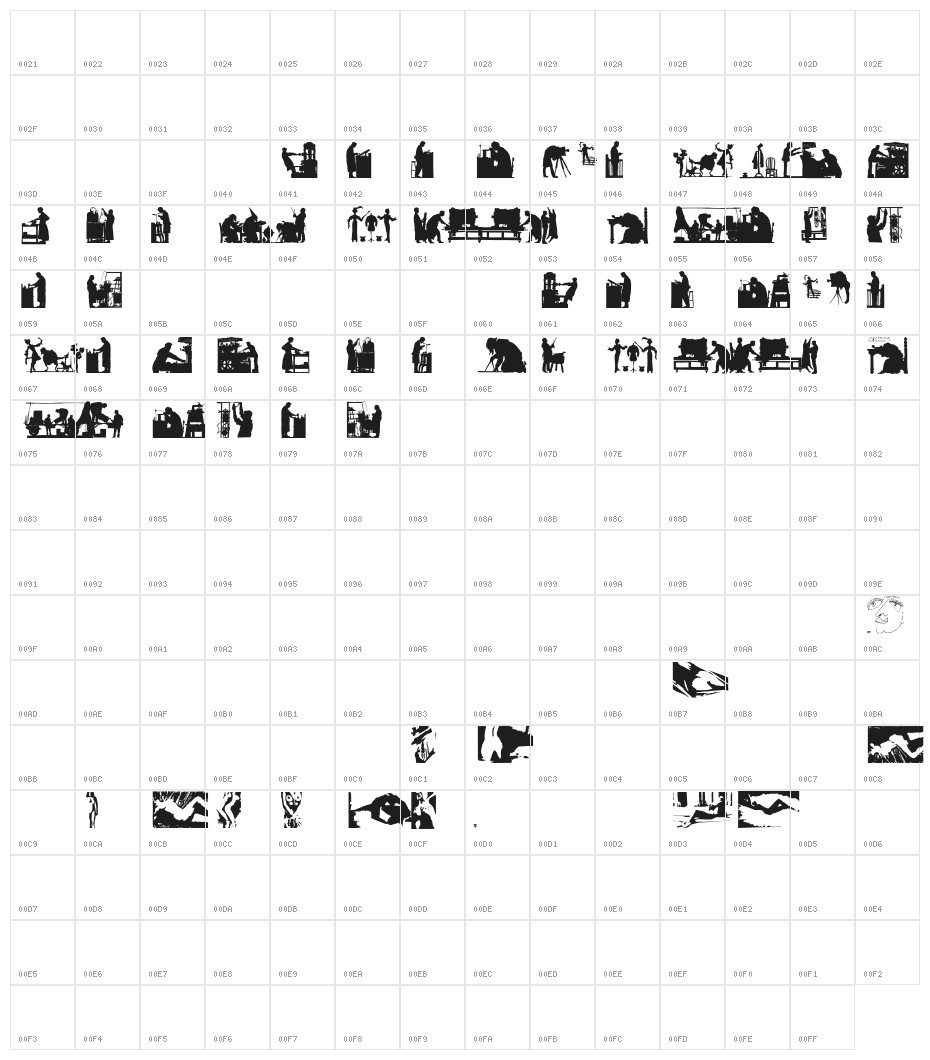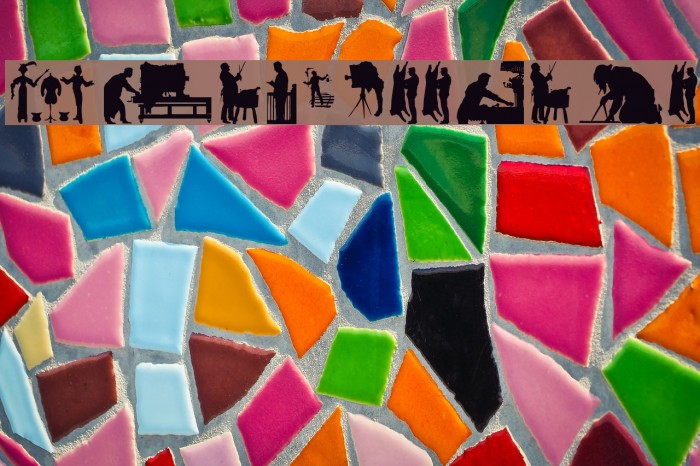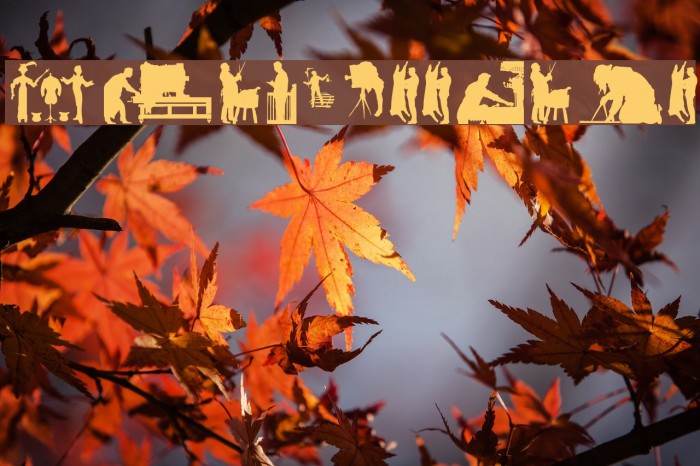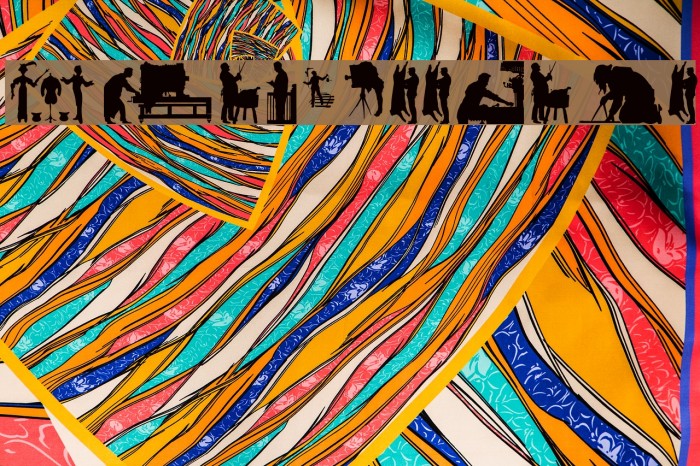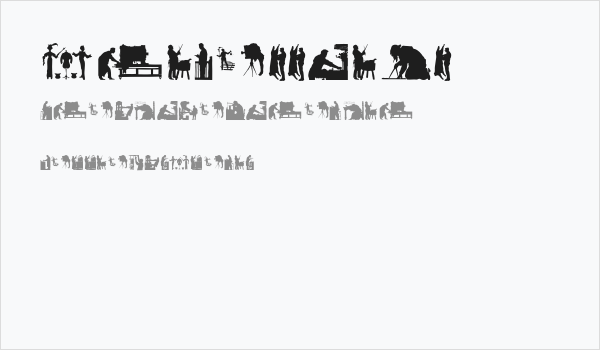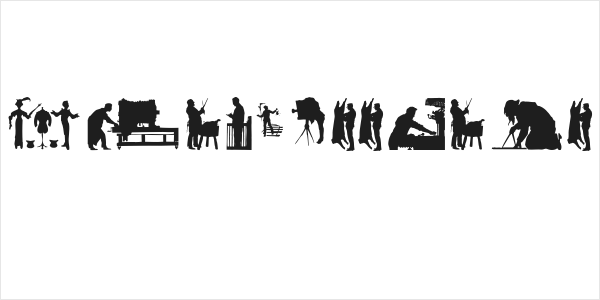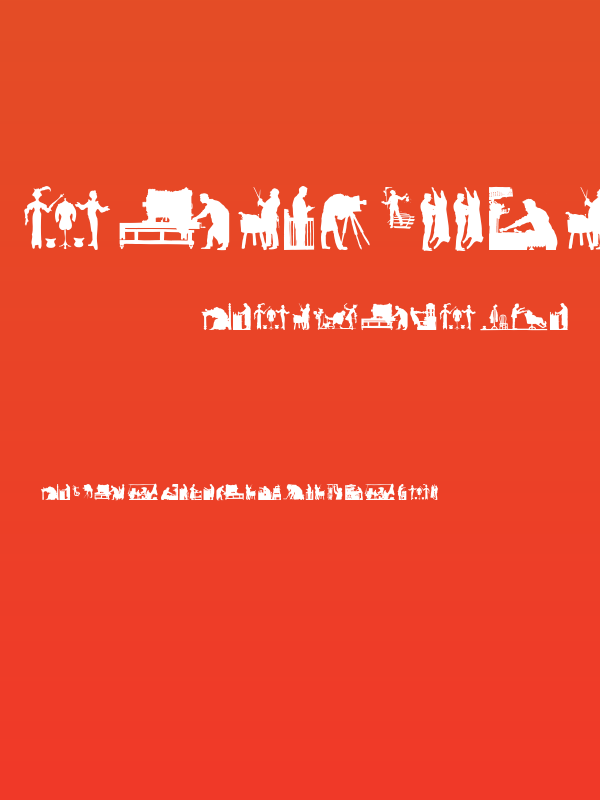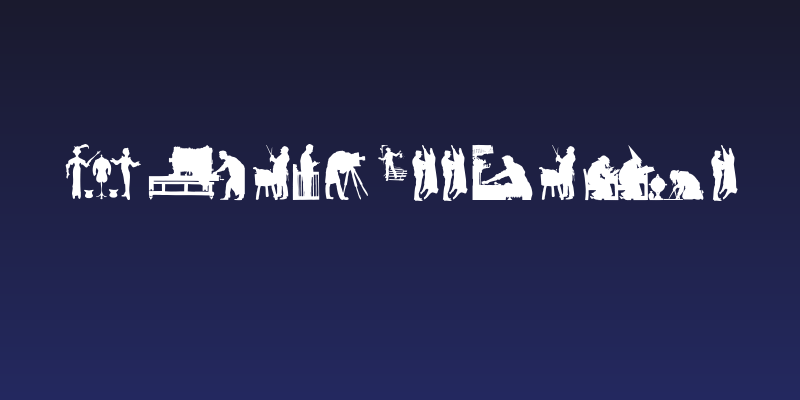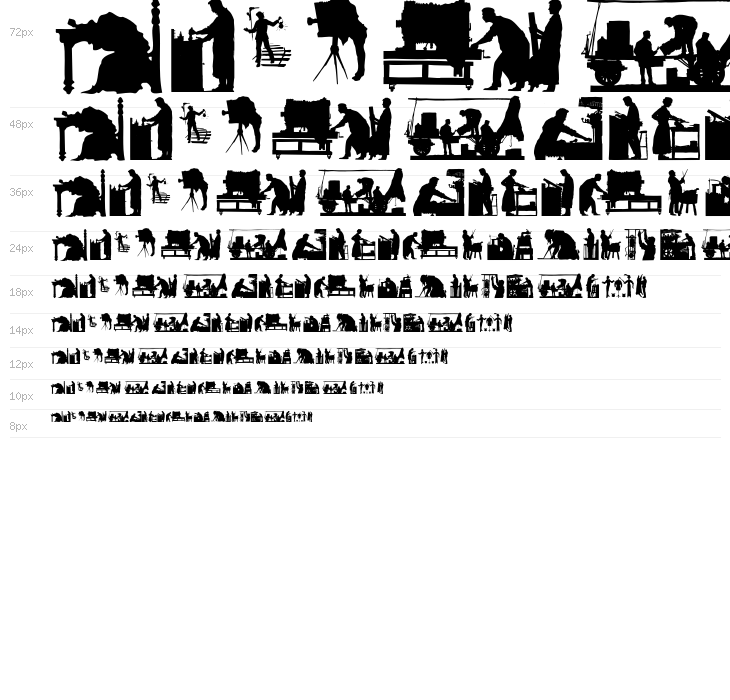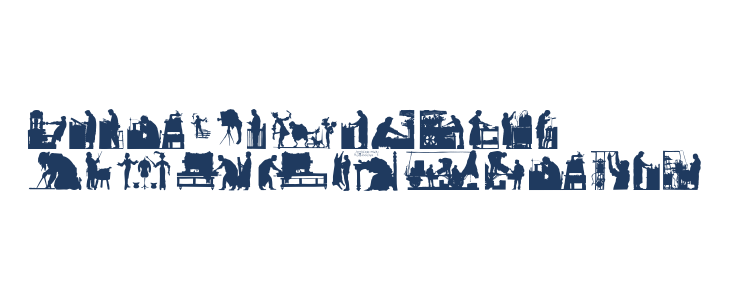
Professions Font
Professions Description
A decorative display font featuring silhouettes of various professions and occupational scenes, with each character represented by a unique black-and-white pictogram. The glyphs are highly illustrative and detailed, focusing on recognizable human activities and tools related to different jobs.
| Overall Style | Decorative, Illustrative |
| Use Case | Logos, Posters, Educational graphics, Thematic displays |
| Proposed Projects | Educational materials, career fair posters, infographics, themed event invitations, childrenΓ’β¬β’s books, signage for museums or exhibitions. |